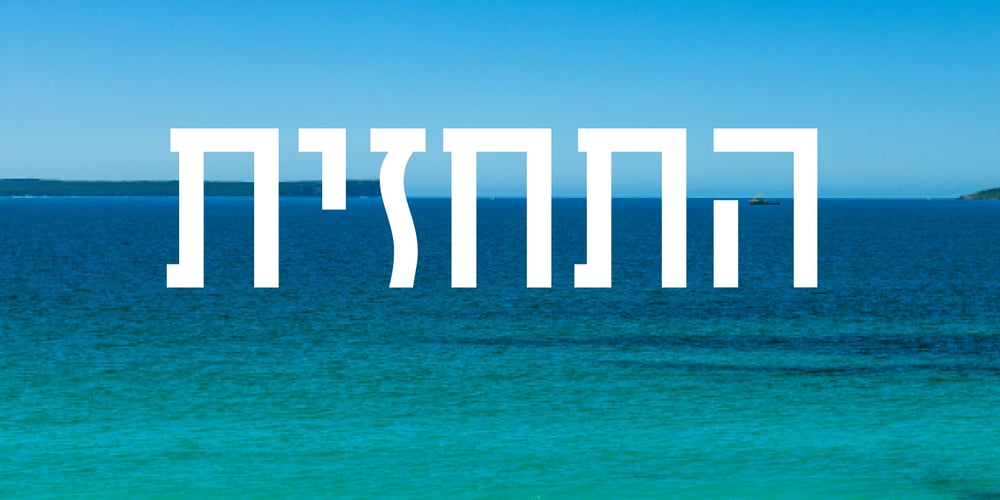
Tamrurim MF Font Family was designed by Zvika Rosenberg and published by Masterfont. Tamrurim MF contains 4 styles and family package options. Most known type that was used years ago on road signs in Israel. Here we offer a 4 weights font family that makes it super practical for any use.